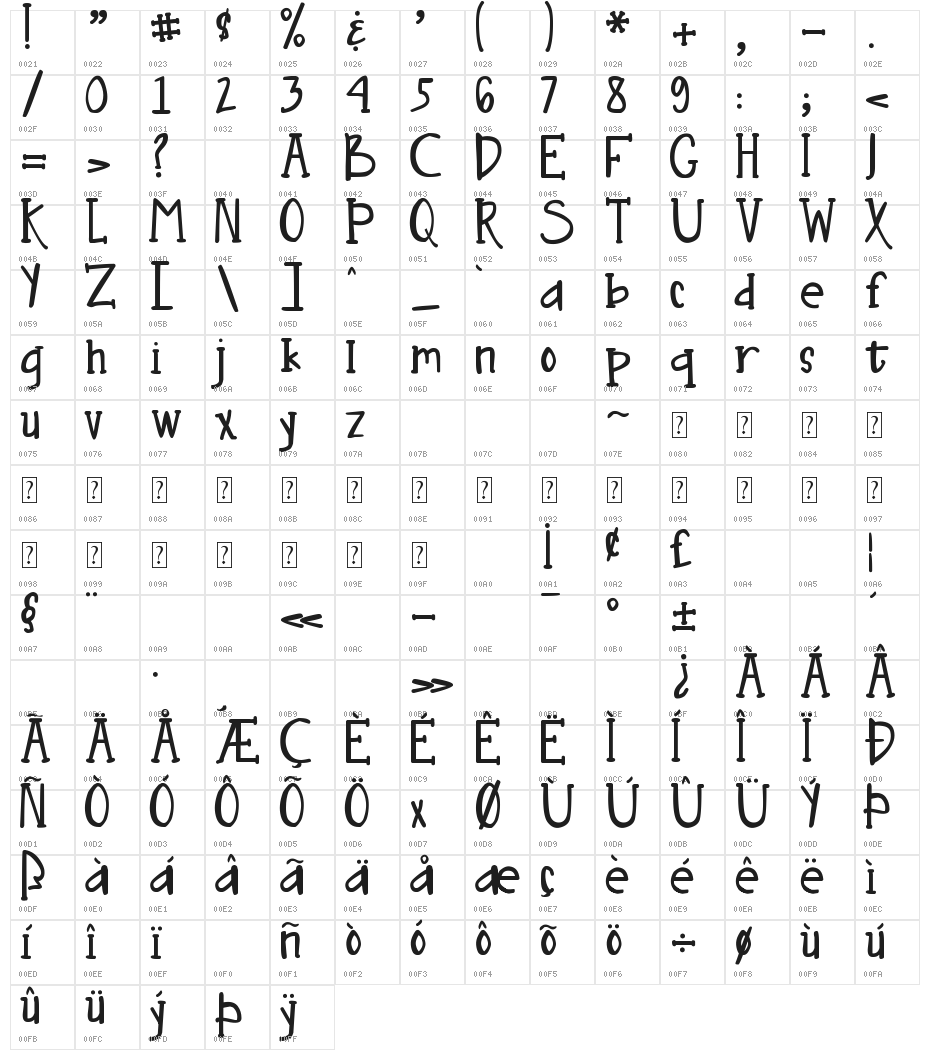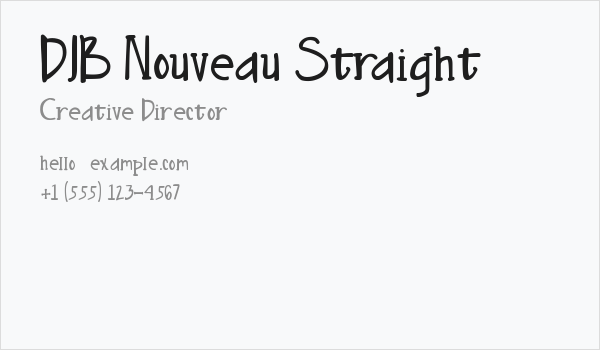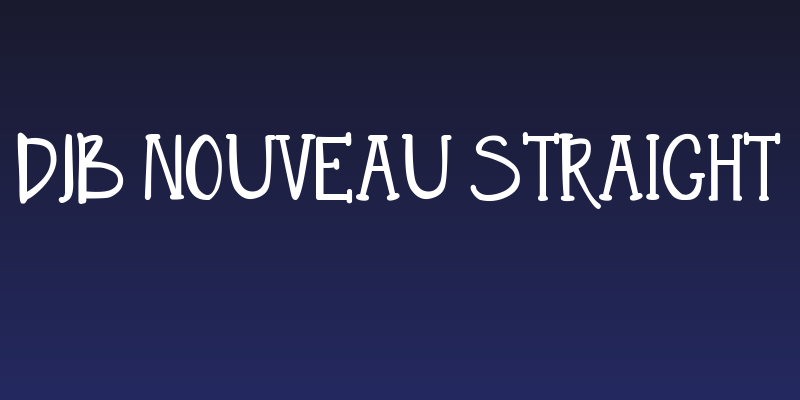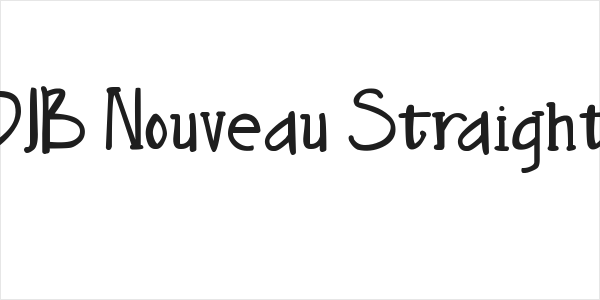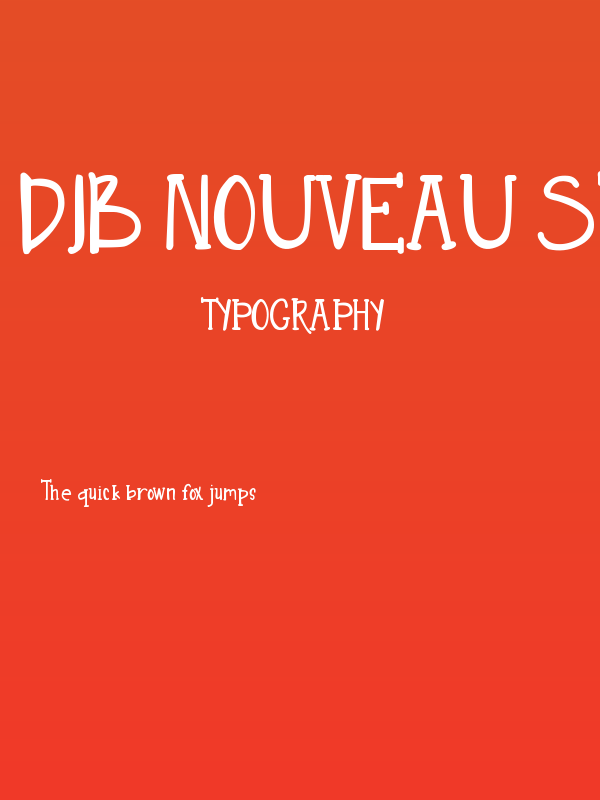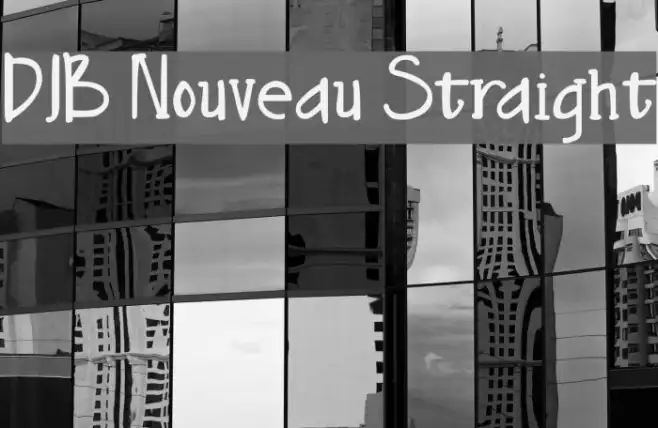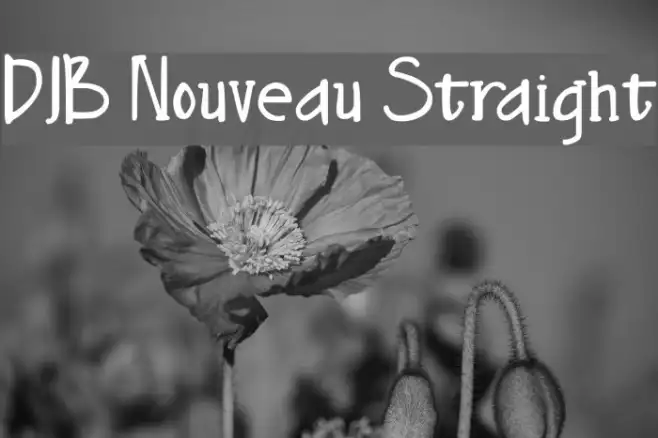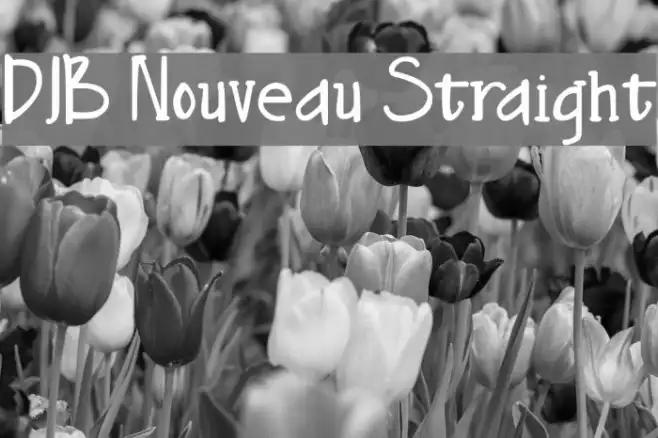
DJB Nouveau Straight Font
DJB Nouveau Straight Description
This font features a playful and whimsical style with a hand-drawn appearance. The characters are slightly irregular, giving it a casual and friendly feel. The uppercase letters are tall and narrow, while the lowercase letters maintain a consistent height, adding to the font's charm. The numbers are bold and slightly larger, ensuring readability. Special characters are creatively designed, maintaining the overall quirky aesthetic. This font is perfect for projects that require a personal touch or a fun, informal vibe.
| Proposed Projects | Ideal for children's books, greeting cards, playful branding, and casual invitations. |